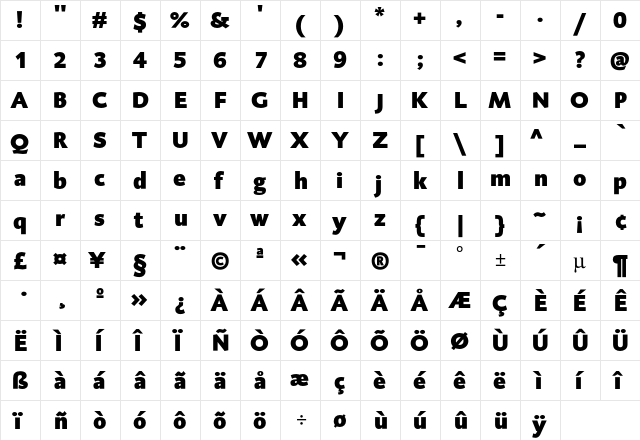
DTLCaspariT Black
Design Context for DTLCaspariT Typeface
DTLCaspariT offers clean, dependable letterforms without strong stylistic allegiance, making it a practical choice for designers who need flexibility.